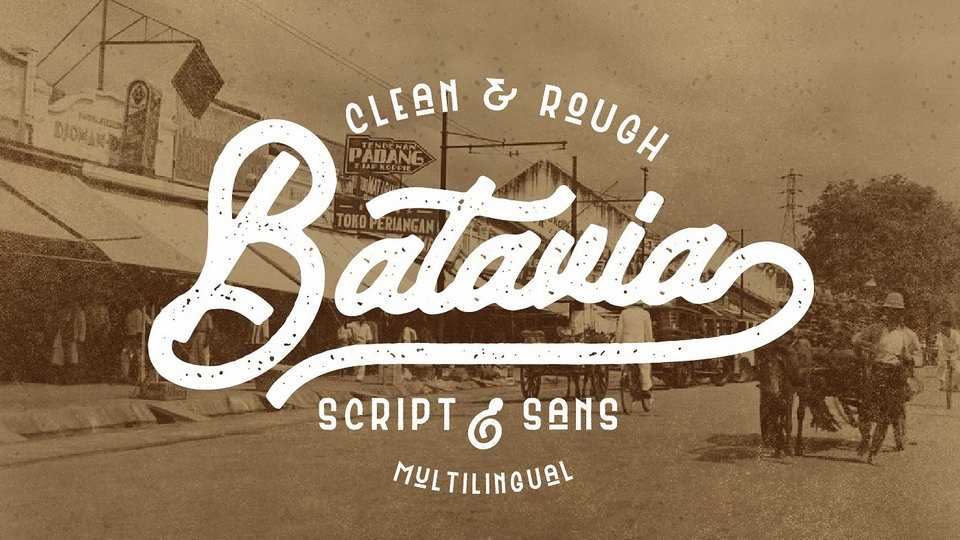
Download Batavia typeface, a vintage Script & Sans font family crafted by hand and inspired by the atmosphere of Batavia, a city in the Dutch East Indies which is now renamed Jakarta.